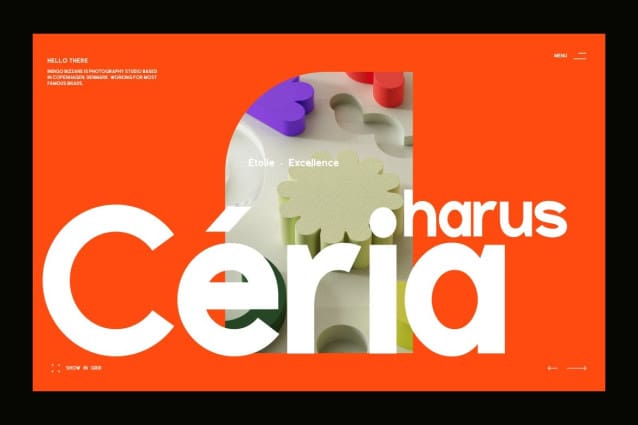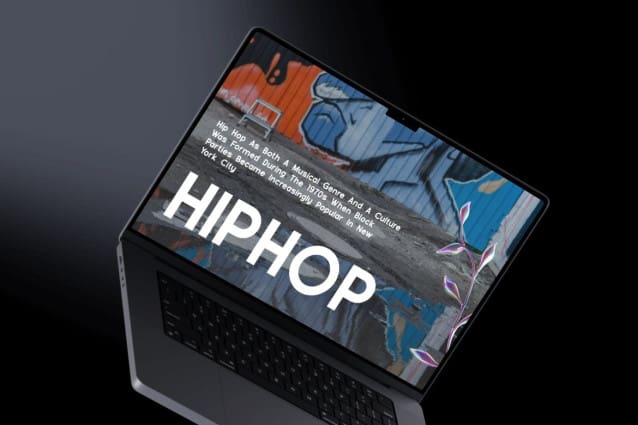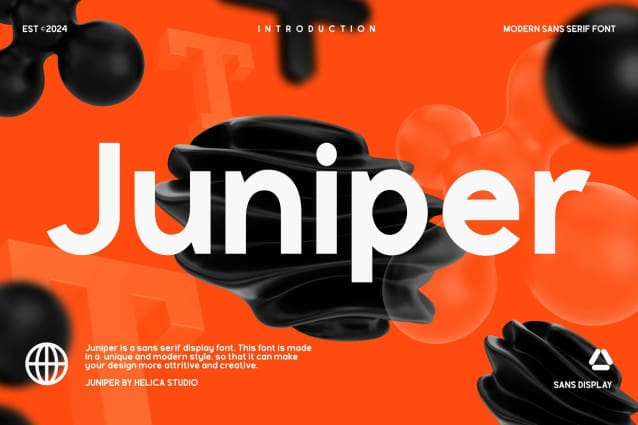
Juniper Sans Font
Juniper Sans Font – Modern Sans Display Font is perfect for creating elegant quotes, stunning logos, captivating magazine headers and much more.